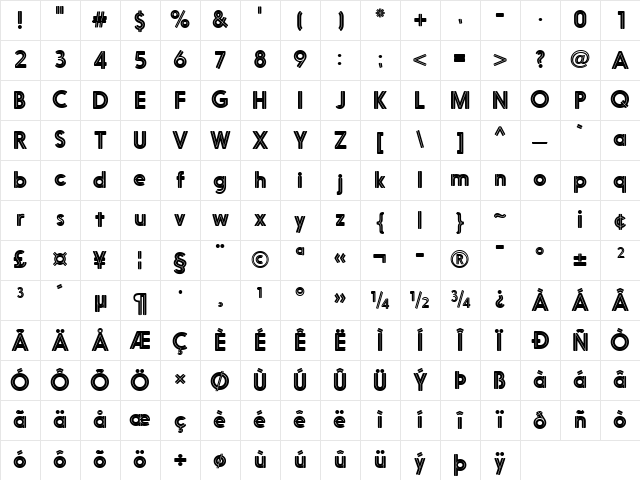
Nanami Rounded Inline Regular
Foundry: Thinkdust
Designer: Alex Haigh
Design Context for Nanami Rounded Inline
Nanami Rounded Inline is built around its visual character rather than neutral utility - its distinctive forms are designed to make an impression at display sizes.
Font Pairing: Pair with a clean neutral sans-serif for body copy to let Nanami Rounded Inline's character lead without overwhelming the composition.
Pro Tip: Use Nanami Rounded Inline exclusively at display sizes - it was designed to be seen, not read at length. Let a neutral companion handle body copy.